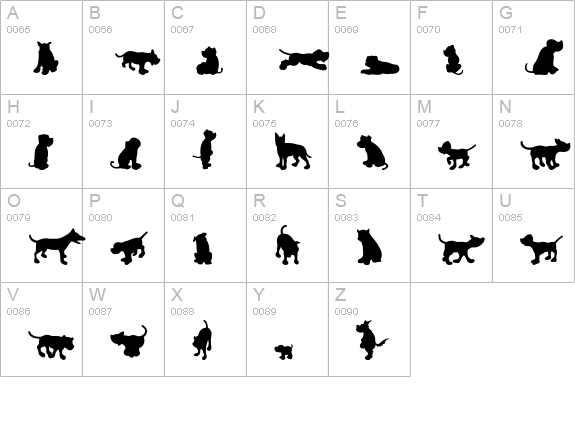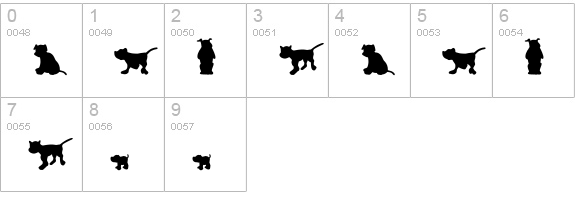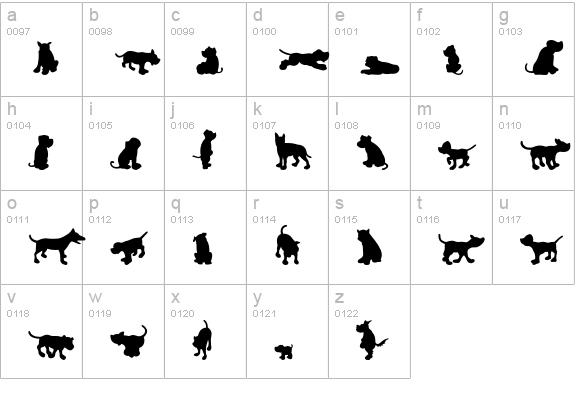
Dog30-Silhouette Font Details
Dog30-Silhouette font is a charming and whimsical typeface that captures the playful essence of man's best friend. With its unique silhouette design, this font brings a touch of canine-inspired creativity to your projects. The elegant curves and intricate details of each letter make Dog30-Silhouette a standout choice for any design project that calls for a fun and friendly aesthetic. Best of all, Dog30-Silhouette font is completely free to download at FontsMarket.com. This means that you can add this delightful typeface to your font collection without spending a penny. Whether you're creating a poster for a pet event, designing a logo for a dog grooming business, or simply want to add a touch of canine charm to your personal projects, Dog30-Silhouette font is sure to delight and inspire. Download it today and unleash your creativity with this adorable and whimsical font.